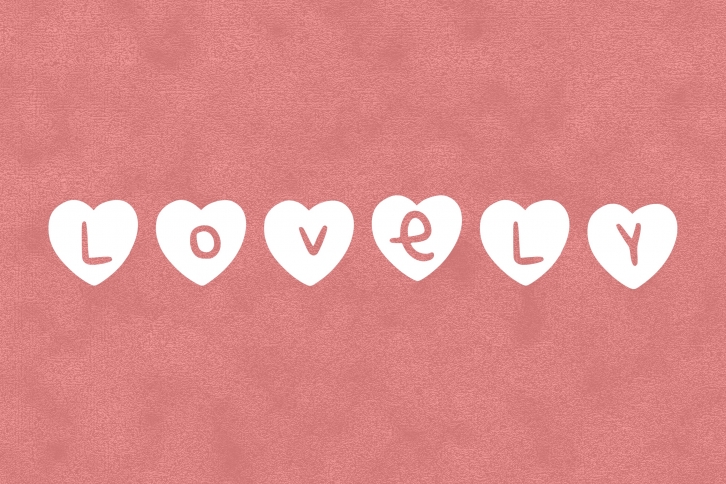
LOVELY IN TTF, OTF is a beautiful font that was designed by Croutons. It's a great choice for designers and creatives who need such a font. It was released on April 12, 2021 and the file size is 19.50 MB. LOVELY IN TTF, OTF may give a more youthful, expressive and casual look to your project. It is a very beautiful, refined, elegant, and high-quality font.